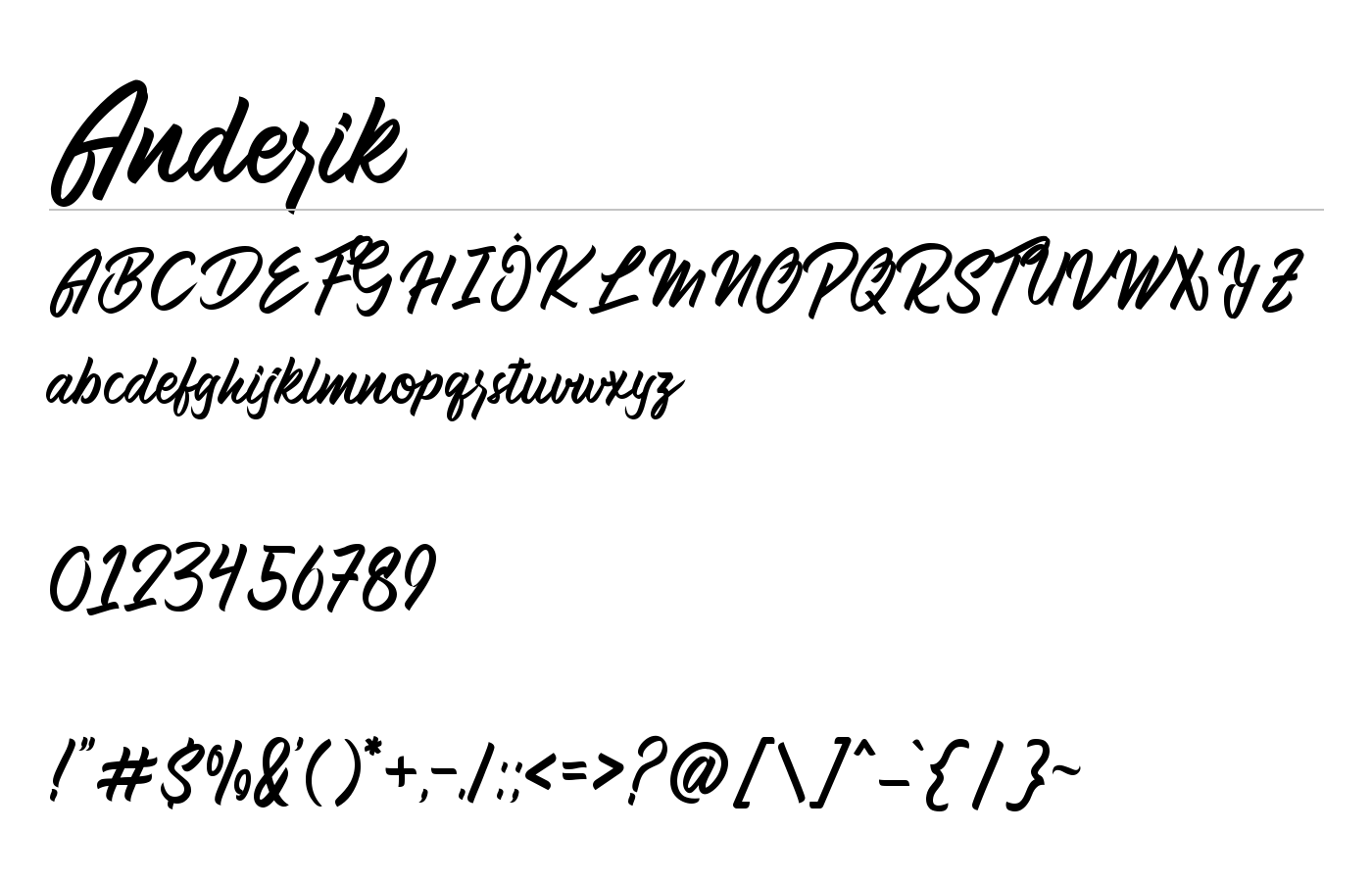
Anderik is a dynamic and expressive script font with smooth, flowing strokes that give it a lively and personal touch. Its moderately high contrast and slightly condensed letterforms make it ideal for adding a stylish yet approachable feel to branding, invitations, and headlines where a handcrafted elegance is desired. With its clear legibility and unique flair, Anderik brings a modern handwritten charm suited for creative and fashion-forward projects.
Anderik Font
About Anderik Font